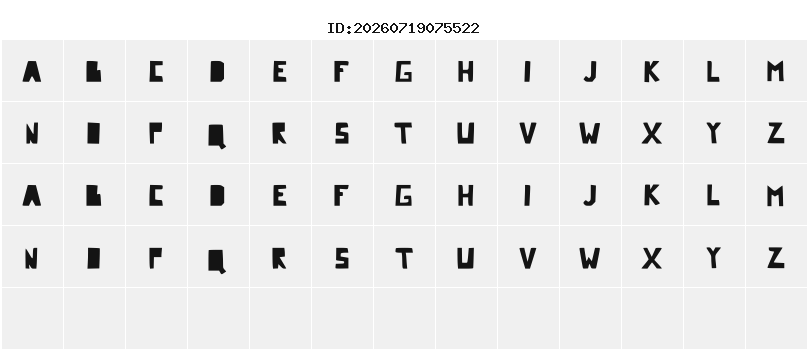
Comic Dandy Preview
• Font Name: Comic Dandy
• Full Font Name: Comic Dandy
• PostScript Name: ComicDandy
About Comic Dandy.ttf
Comic Dandy.ttf is a modern, elegant sans-serif font designed for ultimate readability and visual harmony. Perfect for branding, headlines, web design, and print materials.